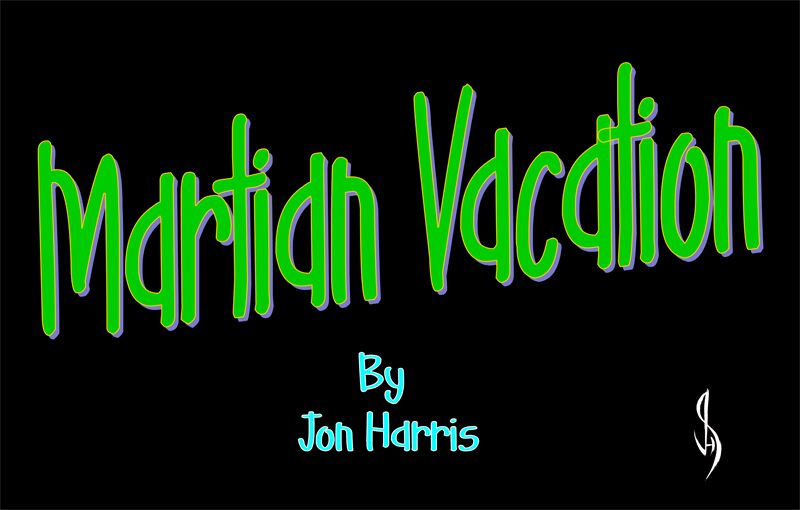
Martian Vacation
Martian Vacation is a captivating display font that exudes a playful, whimsical charm. Designed by Jonathan Stephen Harris, this comic-style typeface boasts a striking, hand-drawn appearance with dynamic, irregular strokes that evoke a sense of adventure and exploration. The uneven, almost jagged edges and distinct letter shapes lend the font a quirky, off-kilter aesthetic, perfect for adding a touch of personality to headlines, logos, and creative projects with a fun, extraterrestrial flair.
This font's versatility extends beyond its visual appeal, making it a versatile choice for a wide range of applications, from children's book illustrations and product packaging to event branding and social media posts. Martian Vacation's unique character allows it to seamlessly blend into designs that seek to capture a sense of playfulness, imagination, and the extraordinary.